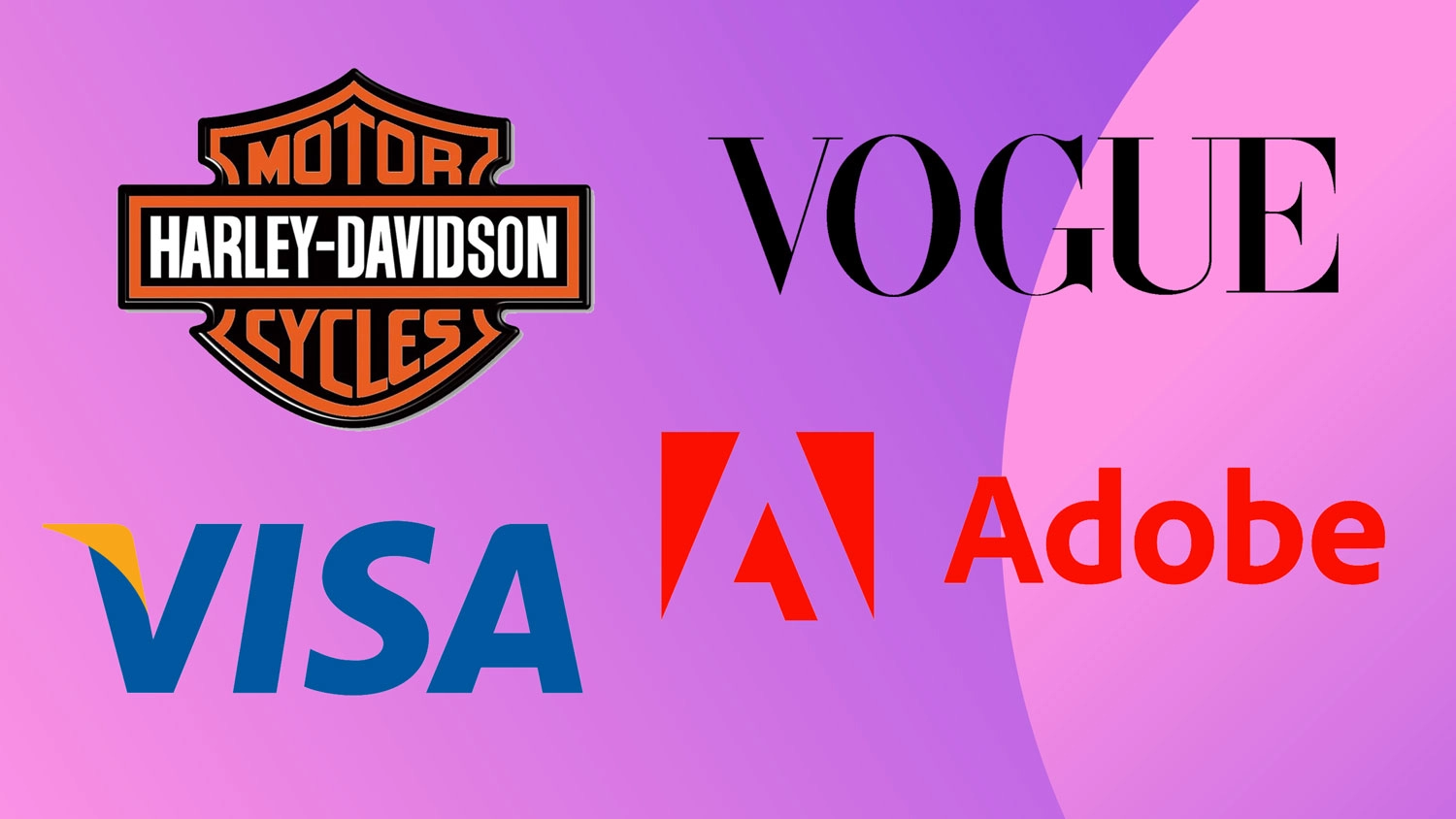
4 fonts that dominate brand design
It doesn't always pay to go custom.
When creating a brand identity, some would say the most important job is to make sure the design is totally unique in order to be memorable and carve out a niche. With this in mind, any associated typeface would ideally be custom – created specifically to deliver a bespoke look.
Surprisingly, many brands actually choose to use the same fonts for their wordmarks, relying on styling and context to create their own distinct aesthetic. Of course, it is unusual for competitors in the same space to adopt the same logo font (though it does happen, especially in the case of one well-known typeface – keep reading for more on that), but many brands across different industries utilise identical and even well-known fonts as part of their identities.
Here are four commonly-used fonts and the brands that use them for their wordmark. Had you noticed?
01. Helvetica
Helvetica has been used by many prominent brands. In fact, it was once the go-to commercial font because it was considered to ooze professionalism, trustworthiness and approachability after its beginnings as a modernist font heavily used after WW2. It's a sans-serif that is super-clear and clean, with a friendly, rounded appeal – and it pairs well with other fonts thanks to being fairly neutral in appearance (find out more about font paring here).
Thanks to the amount of widths and depths it comes in, it's remarkably versatile when you spot it across different brands – it does manage to look quite unique in its various applications. For example, the Toyota wordmark is remarkably different from the Harley Davidson aesthetic (we think Harley Davidson is an outlier in this market – the messaging of this brand is something quite different from the above description).
Other brands using Helvetica are American Apparel, Nestlé, Luthansa, Kappa, Fendi, Energizer, Panasonic and Jeep among others.
02. Didot
The fashion font of choice, this typeface is used on magazines and brands globally to signify high-end luxury. The small serifs, thick and thin elements and circular lines are now reminiscent of expense and quality. Not particularly versatile, but maybe that's the point, you can see Didot in action at Vogue, Harper's Bazaar, Giorgio Armani, Boss, Guess and, less expensively, Zara (though that Zara logo did cause some controversy).
It's most often used in black on a white background, with the monochrome adding to the simple elegance associated with luxury brands.
03. Futura
A real mix of brands have channelled Futura – there's no clear pattern here, unlike with the two fonts that came first on this list. A geometric sans-serif, its universal appeal comes from the modern aesthetic, that's also fairly neutral and the way it works across print and digital. We would never have expected to see some of these brands in the same list.
Big names include Domino's Pizza, Nike, Louis Vuitton, Gillette and Red Bull. This is another example of a font that manages to look completely different across applications, with the design context and weights chosen impacting the overall aesthetic hugely.
04. Myriad
Some huge names have utilised Myriad – a humanist sans-serif that is super-adaptable thanks to its range of weights and widths.
Its versatility is notable from the applications across brands that share a space – would you imagine that Apple and Adobe would be happy to share a typeface, for example? Well that's exactly what Myriad delivers, with Apple having used this typeface for its corporate font from 2002 to 2017 while Adobe uses it for its logo. There's also Volkswagen, Rolls-Royce, Walmart, LinkedIn and Visa that have used the typeface for their wordmarks and logos.